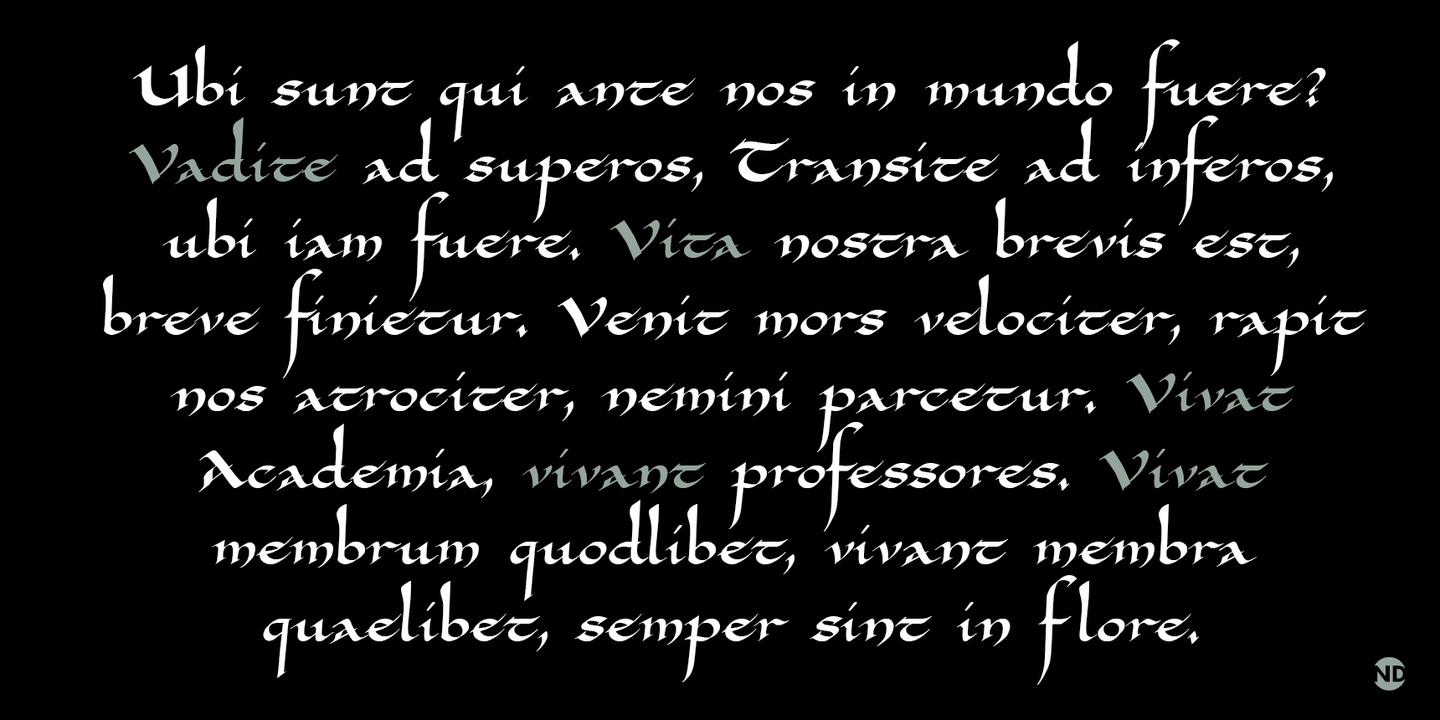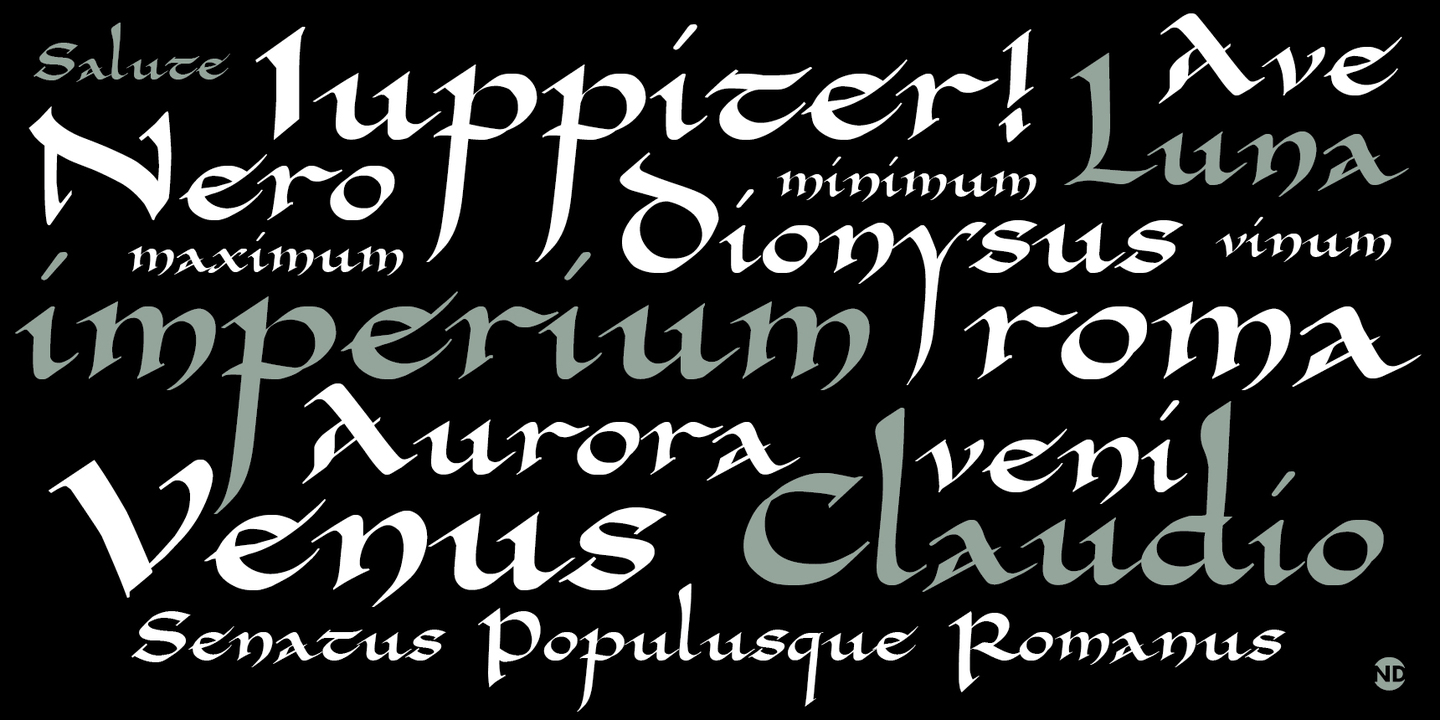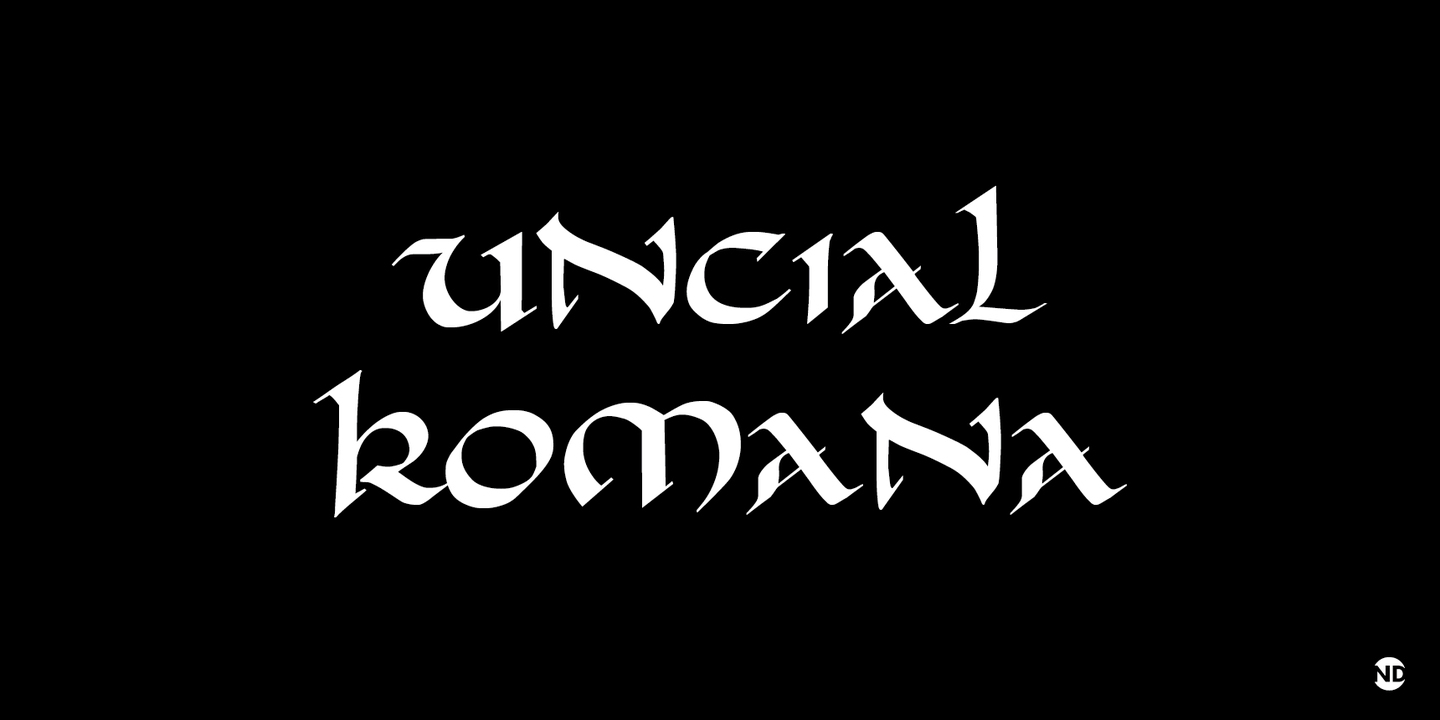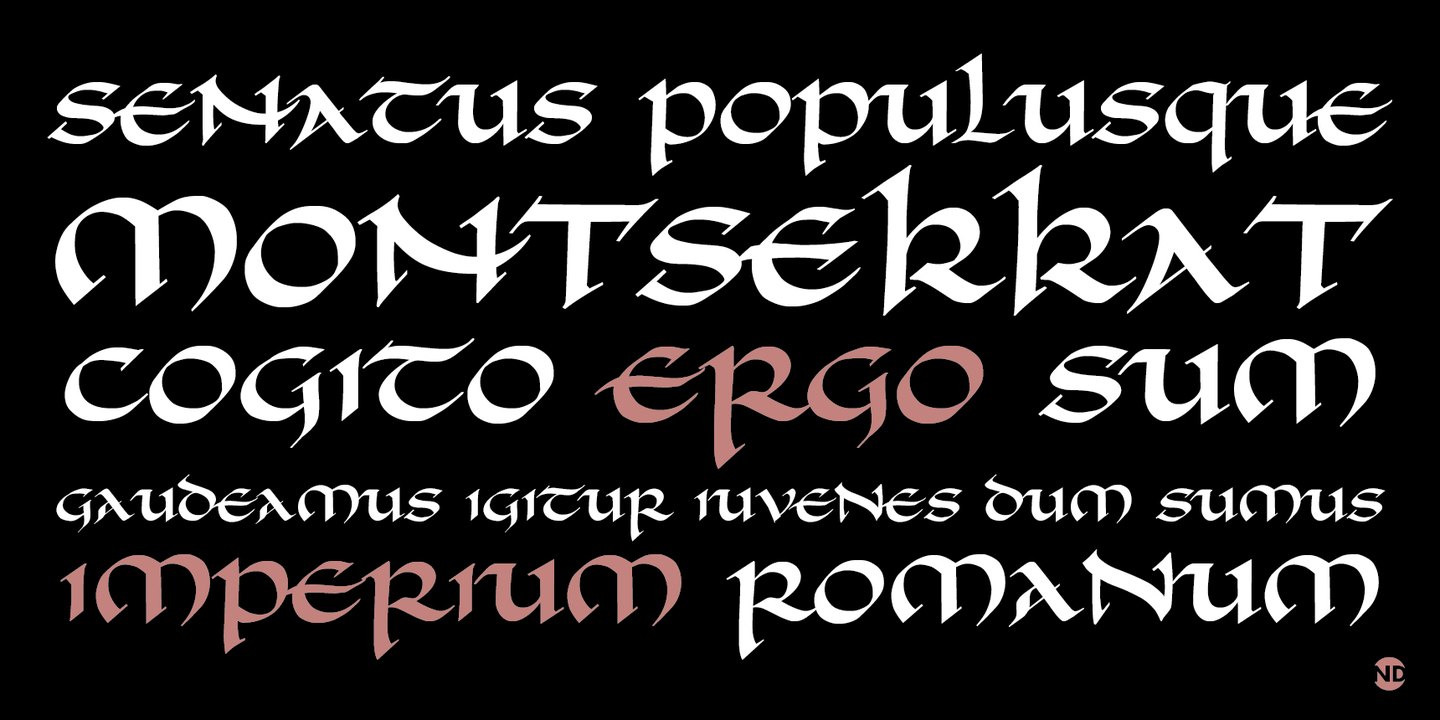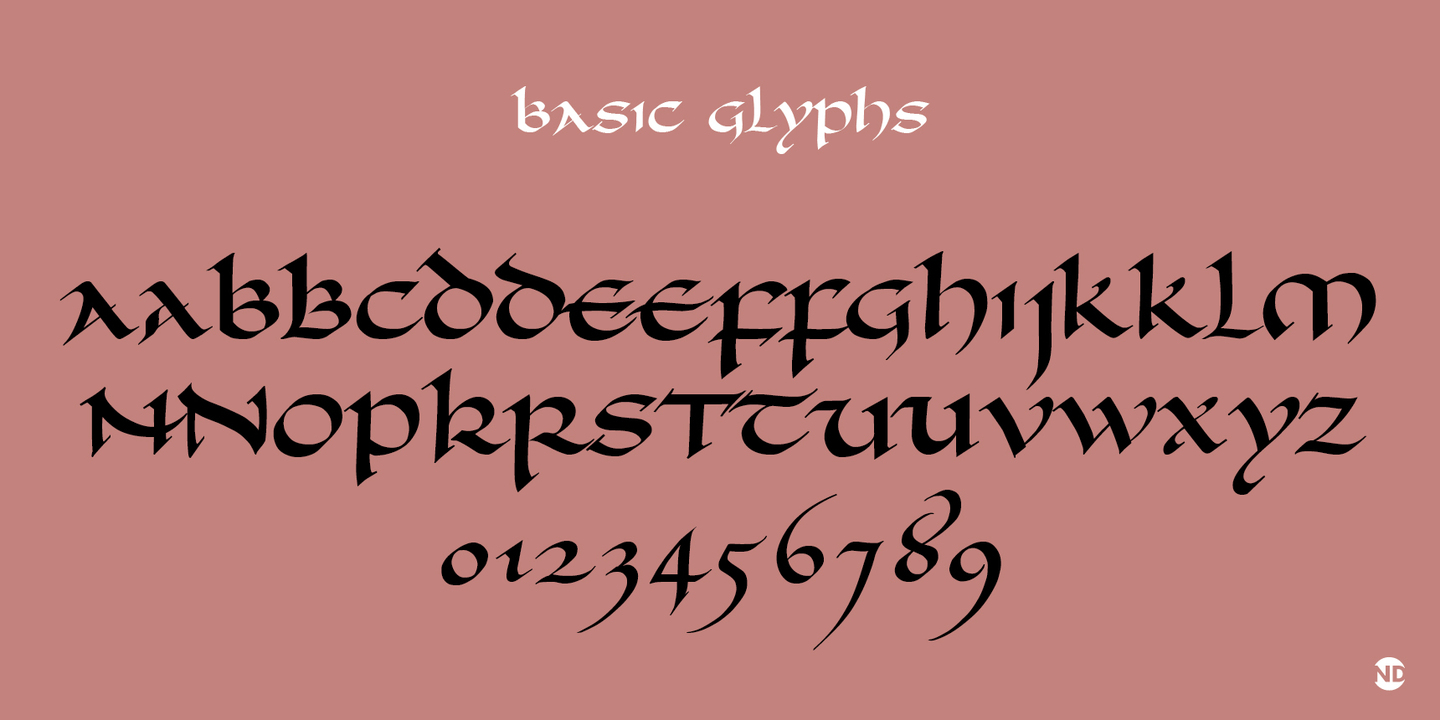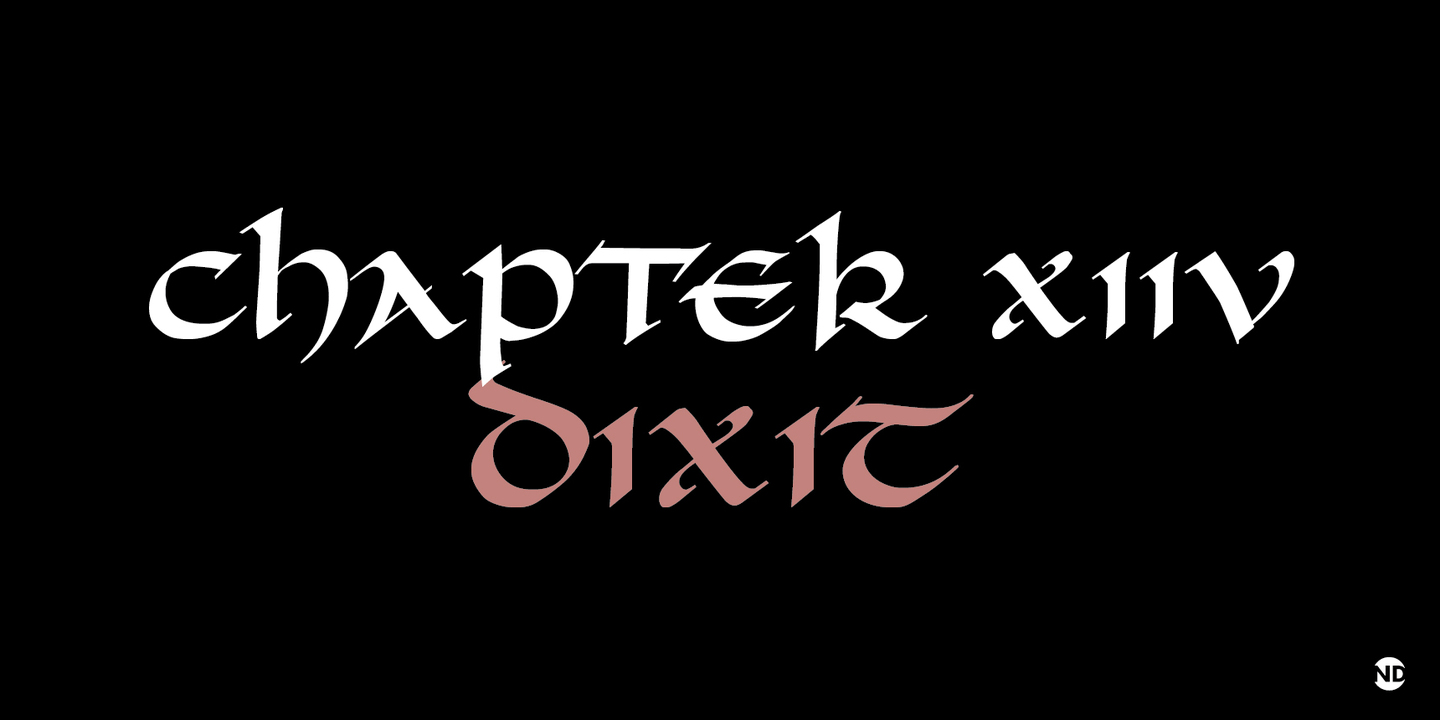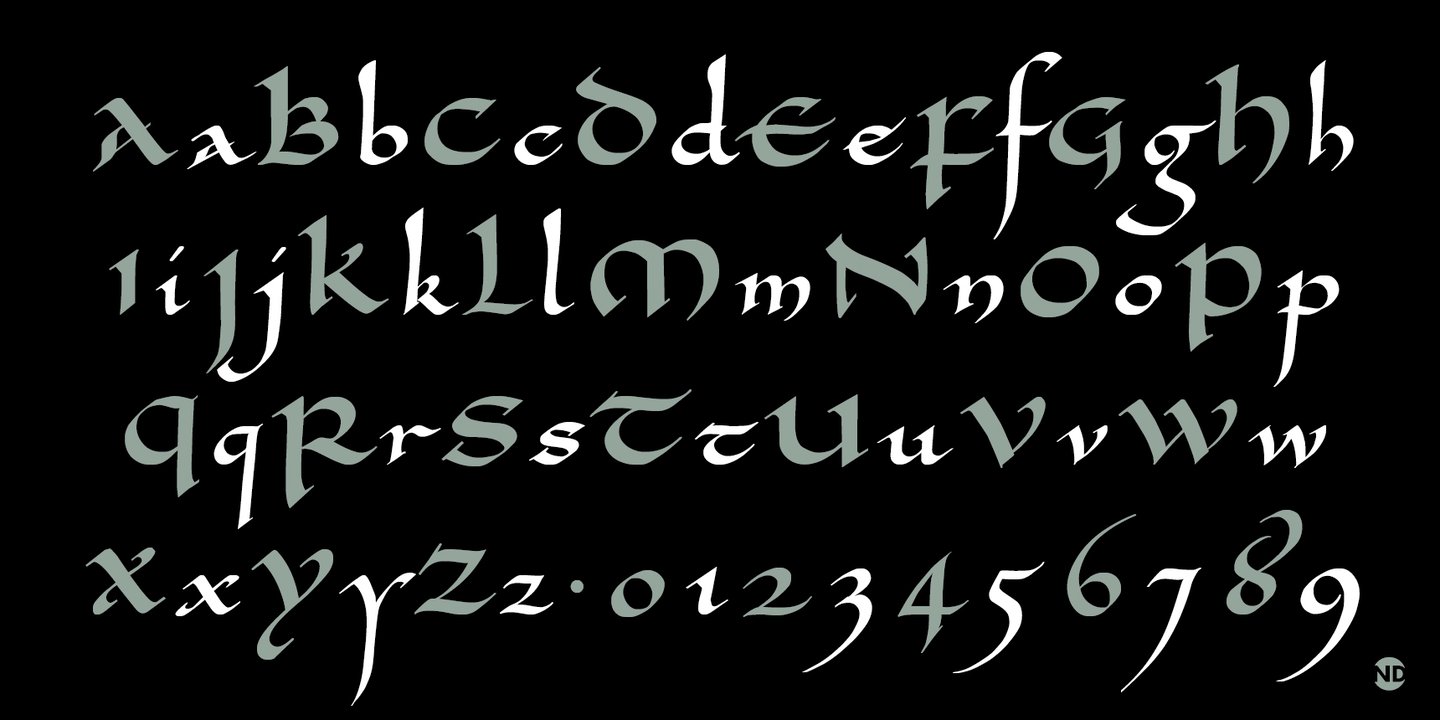
Ricardo Rousselot of ArgentinaBorn: Argentine, 1936 Rousselot began as a freelance designer at a very young age, soon devoting himself to the alphabet. He worked in Chicago with pupils of Goudy and Cooper: William Ficho, Carl Corley and Ferrell Daniels. He wrote about his experience: I´ve done everything, but nothing has ever kept me away from my first love: the alphabet. I´ve tried to improve it each day, inspired by the letters on Trajan´s column: never to be forgotten, without equal... Calligraphy must be expressive and clear, emanating warmth and ´joie de vivre´. ´Anything worthy of being written is worth being written well´. Fonts by Ricardo RousselotCarlomagno ND, Uncial Romana ND Browse all fonts by Ricardo Rousselot ActivitiesRelated Links